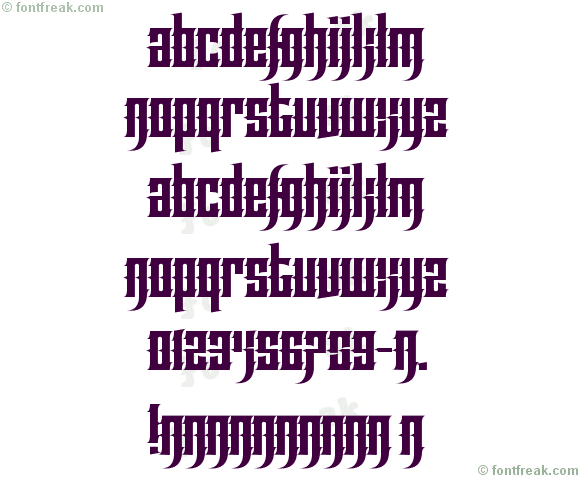
Effortless Tattoo
About Effortless Tattoo
Effortless Tattoo by Andrew McCluskey is a striking display font that embodies a unique blend of decorative and handwritten styles. The font features bold, angular strokes with a distinct contrast that gives it a dynamic, eye-catching appearance. The strokes are thick and robust, creating a sense of strength and presence, while the spacing between characters is thoughtfully designed to maintain readability without sacrificing artistic flair. This makes the font particularly appealing for projects that require a bold statement.
This font is ideal for a variety of use cases. It excels in tattoo design, where its aesthetic aligns perfectly with the art form it represents. Additionally, it can be effectively utilized in branding for edgy businesses, such as skate shops or tattoo parlors. The Effortless Tattoo font is also well-suited for promotional materials, including posters for music events or festivals, where its boldness can capture attention. Furthermore, it can enhance merchandise design, making it a great choice for apparel or accessory lines that want to convey a rebellious spirit.
What truly sets the Effortless Tattoo font apart is its ability to convey a sense of individuality and artistry. Whether used in a tattoo design or as part of a brand identity, it captures the essence of creativity and self-expression. For those seeking a distinctive typeface, the Effortless Tattoo font free download is an opportunity not to be missed.